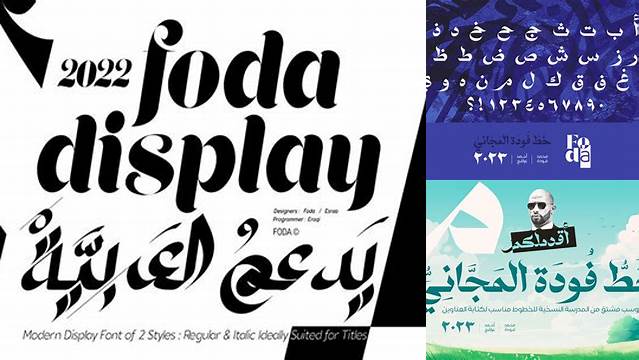
Hey guys! Are you looking to add some serious flair to your projects? Well, you've landed in the right place. Today, we're diving deep into the world of Foda Font Free Download, exploring everything from its origins and unique characteristics to where you can find it and how to use it effectively. We'll also be covering related topics and answering all your burning questions. So, buckle up and let's get started!
1. What is Foda Font?
Foda Font is more than just a typeface; it’s a statement. Known for its distinctive, often bold, and sometimes quirky design, Foda Font adds a unique personality to any project. Think of it as the design equivalent of a charismatic individual – it commands attention and leaves a lasting impression. Now, the term “Foda” itself might not be widely recognized as a specific font family like Helvetica or Times New Roman. Instead, it's more likely that “Foda Font Free Download” refers to a particular style or a set of fonts that embody a bold, modern, and perhaps even edgy aesthetic. These fonts often feature strong lines, unique letterforms, and a generally attention-grabbing presence. When you're thinking about using Foda Font, consider the overall tone and message you want to convey. This kind of font works wonders for branding materials, posters, website headers, and anywhere you need to make a bold statement. Imagine using it for a music festival poster, a trendy cafe menu, or even a startup's website – it’s the perfect way to inject some personality and stand out from the crowd. Choosing the right font can be tricky, but with its bold and unique nature, Foda Font can be a game-changer for your designs.
2. Key Characteristics of Foda Font
The key characteristics of what we're calling Foda Font are what make it so appealing for various design projects. Generally, when people search for Foda Font Free Download, they’re looking for fonts that exude a certain boldness and modernity. These fonts often feature strong, clean lines, making them incredibly legible and impactful. One of the standout features is the unique letterforms. Think about letters that have slightly unconventional shapes or angles – this is what gives Foda Font its distinctive edge. The font often leans towards a contemporary feel, making it perfect for projects that aim to look cutting-edge and stylish. Another crucial aspect is versatility. While the font is bold and attention-grabbing, it's also surprisingly adaptable. It can work well in a variety of contexts, from website headers and branding materials to posters and social media graphics. Consider how the font's weight and spacing contribute to its overall impact. A heavier weight can make a stronger statement, while thoughtful spacing ensures readability. These subtle nuances are what make a font truly effective. So, when you're exploring your options for Foda Font Free Download, pay attention to these characteristics. They’re what will help you find the perfect font to elevate your design and capture your audience's attention. Remember, it's all about making a bold and memorable statement.
5. Using Foda Font in Graphic Design
Alright, let's get into the fun stuff: how to actually use Foda Font in your graphic design projects. Remember, Foda Font typically has a bold and distinctive look, so it's perfect for making a statement. Think about where you want to draw the viewer's eye – headings, titles, and logos are all great places to start. Using Foda Font for a headline can instantly grab attention. Its strong lines and unique letterforms can make your message pop. Just imagine a poster with a bold Foda Font title – it's sure to stand out. But it's not just about headlines. This type of font can also work wonders for branding. A logo designed with Foda Font can give your brand a modern and edgy feel. It's all about creating a memorable visual identity. When it comes to body text, though, you might want to use Foda Font sparingly. Its bold nature can make it a bit overwhelming for long paragraphs. Instead, use it for subheadings or callouts to add visual interest without sacrificing readability. Think about pairing Foda Font with a simpler, more classic font for the body text. This creates a nice contrast and keeps your design balanced. Experiment with different sizes and weights too. A lighter weight can give a more elegant feel, while a heavier weight amps up the boldness. And don't forget about color. A bold font like this can really shine when paired with a striking color palette. So, when you're diving into your next design project, consider how Foda Font can help you make a bold and lasting impression. It's all about using its unique characteristics to your advantage.
6. Foda Font for Logos and Branding
When it comes to logos and branding, Foda Font can be a real game-changer. A logo is the face of your brand, and the font you choose plays a massive role in how that face is perceived. If you're aiming for a modern, bold, and memorable look, Foda Font might just be your secret weapon. Think about it: a bold font can instantly convey confidence and strength. It tells your audience that you mean business. But it's not just about boldness. The unique letterforms often found in Foda Font can add a touch of personality and originality to your logo. This is crucial for standing out in a crowded market. When you're designing a logo with Foda Font, consider the overall message you want to send. Are you a tech startup looking to appear cutting-edge? Or maybe a creative agency aiming for a stylish and innovative vibe? The font you choose should reflect these values. Foda Font can work beautifully for both, but it's all about how you use it. Experiment with different weights, sizes, and letter combinations. Sometimes, just a slight tweak can make all the difference. And don't forget about the color palette. Pairing Foda Font with the right colors can amplify its impact and create a cohesive brand identity. Using Foda Font in your branding isn't just about making something look pretty; it's about creating a lasting impression. It's about communicating your brand's personality and values in a visual way. So, if you're ready to give your brand a bold and distinctive edge, Foda Font might be the perfect place to start.
7. Pairing Foda Font with Other Fonts
The art of pairing fonts is a crucial skill in design, and when you're working with a bold font like Foda Font, it becomes even more important. The goal is to create a harmonious balance that makes your design look polished and professional. Foda Font, with its distinctive personality, often works best when paired with a simpler, more neutral font. Think of it as finding the perfect supporting actor for a lead role – you want someone who complements the star without overshadowing them. One classic pairing is Foda Font for headlines and a clean, sans-serif font like Helvetica or Arial for body text. This combination provides a strong visual hierarchy, drawing the eye to the title while ensuring readability for the main content. Another great option is to pair Foda Font with a serif font like Times New Roman or Garamond. This can create a sophisticated and timeless feel, especially if you're aiming for a more traditional or elegant aesthetic. The key is to create contrast. A bold and unique font like Foda Font needs a counterpart that's less attention-grabbing, so the overall design doesn't feel too chaotic. Experiment with different weights and sizes to see what works best. For example, you might use a heavier weight of Foda Font for the main headline and a lighter weight for subheadings, paired with a regular weight of your chosen body text font. Don't be afraid to mix and match, but always keep the overall readability and visual appeal in mind. Pairing fonts is a bit like mixing ingredients in a recipe – the right combination can create something truly delicious!
8. Foda Font in Web Design
When it comes to web design, choosing the right font can make or break the user experience. And Foda Font, with its bold and distinctive look, can be a fantastic asset if used strategically. Think about the first impression your website makes. A bold headline in Foda Font can immediately grab a visitor's attention and set the tone for your brand. It's all about making a statement and showing off your personality right from the start. But web design is about more than just aesthetics. Readability is crucial. While Foda Font can be amazing for headings and titles, using it for large blocks of body text might not be the best idea. Its bold nature can become tiring on the eyes after a while. Instead, consider using Foda Font for key elements like headings, subheadings, and call-to-action buttons. This way, you can leverage its impact without sacrificing readability. Pairing Foda Font with a cleaner, more web-friendly font for the body text is a smart move. Fonts like Open Sans, Roboto, or Lato are excellent choices. They're highly legible and complement the boldness of Foda Font beautifully. Consider how the font scales on different devices. What looks great on a desktop might not translate well to a mobile screen. Make sure your font choices are responsive and adapt seamlessly to various screen sizes. And don't forget about loading times. Using too many custom fonts can slow down your website, which is a big no-no. Stick to a maximum of two or three fonts to keep things running smoothly. Foda Font can be a powerful tool in your web design arsenal, but it's all about using it wisely. Think about balance, readability, and user experience, and you'll create a website that not only looks great but also functions flawlessly.
9. Foda Font for Social Media Graphics
Social media is all about grabbing attention in a fast-paced environment, and Foda Font can be your secret weapon for creating graphics that stand out. Think about scrolling through your own social media feed – what makes you stop and take notice? A bold and eye-catching design, right? That's where Foda Font comes in. Whether you're creating Instagram posts, Facebook ads, or Twitter headers, using Foda Font for your text can instantly elevate your visuals. Its distinctive and modern look can help your message cut through the noise and capture your audience's attention. But it's not just about boldness; it's about clarity. Make sure your text is easy to read, even on a small screen. Use a size that's large enough to be legible, and choose colors that provide good contrast. Consider the overall tone of your social media presence. Foda Font can work for a variety of brands, but it's especially well-suited for those with a modern, edgy, or creative vibe. If your brand is more traditional or understated, you might want to use Foda Font sparingly, perhaps just for headlines or logos. Experiment with different layouts and text placements. Try overlaying Foda Font on a photograph or using it in a graphic with other design elements. The possibilities are endless! And don't forget to be consistent. Use Foda Font consistently across your social media graphics to create a cohesive brand identity. This will help your audience recognize your content at a glance. Social media is a visual playground, and Foda Font can help you create graphics that are both eye-catching and effective. So go ahead, unleash your creativity and let Foda Font help you make a splash!
10. Is Foda Font Suitable for Print Materials?
Absolutely! Foda Font can be a fantastic choice for print materials, adding a touch of boldness and personality to your designs. Think about brochures, posters, flyers, and even business cards – Foda Font can help you create print materials that truly stand out. The key to using Foda Font effectively in print is to consider the context and purpose of your design. For headlines and titles, Foda Font can be incredibly impactful, grabbing the reader's attention and setting the tone for your message. But for body text, you might want to exercise a bit of caution. While Foda Font is visually striking, its bold nature can sometimes make it less comfortable to read in large blocks. Pairing Foda Font with a more legible font for the body text is often the best approach. This ensures that your message is both visually appealing and easy to read. Think about the size and weight of the font you're using. In print, you have more control over the final output, so you can fine-tune these details to perfection. A heavier weight of Foda Font can make a bold statement, while a lighter weight can add a touch of elegance. Consider the color palette you're using. Foda Font can work beautifully with a variety of colors, but it's important to choose colors that complement the font's boldness and create a visually appealing design. And don't forget about the paper stock. The type of paper you choose can affect how the font looks and feels. A matte paper can give a more sophisticated look, while a glossy paper can make the colors pop. Foda Font is a versatile font that can enhance a wide range of print materials. Just remember to think about readability, context, and overall design, and you'll create prints that truly make an impact.
11. Alternatives to Foda Font
12. Licensing Considerations for Foda Font
13. The History and Evolution of Foda Font
14. Foda Font and Typography Trends
15. Creative Uses of Foda Font
16. Designing a Font Similar to Foda Font
17. The Psychology Behind Foda Font
18. Common Mistakes When Using Foda Font
19. Foda Font in Different Design Styles
20. The Future of Foda Font
21. Foda Font for Personal Projects
22. Foda Font in Motion Graphics
23. Foda Font and Brand Identity
24. Foda Font for E-books and Digital Publications
25. Foda Font in Packaging Design
26. Foda Font for Event Invitations
27. Foda Font for T-shirt Designs
28. Foda Font for Mobile App Design
29. Foda Font and Accessibility
30. Tips for Mastering Foda Font